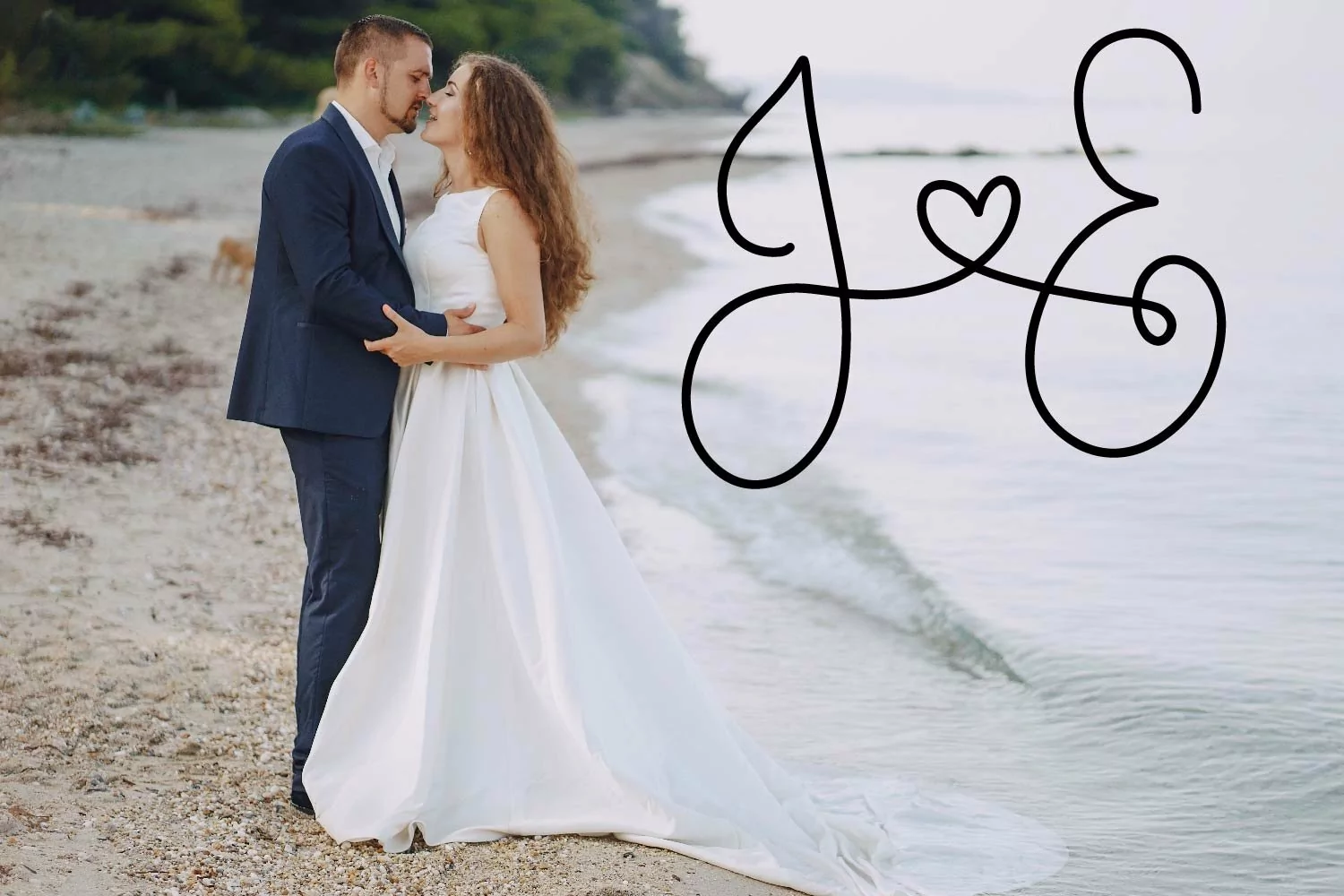
Couple Monoline Monogram Font - Perfect For Weddings!
Create the two-letter monogram by typing the first letter capital, and the next letter lower case.
Example in main image - Yw